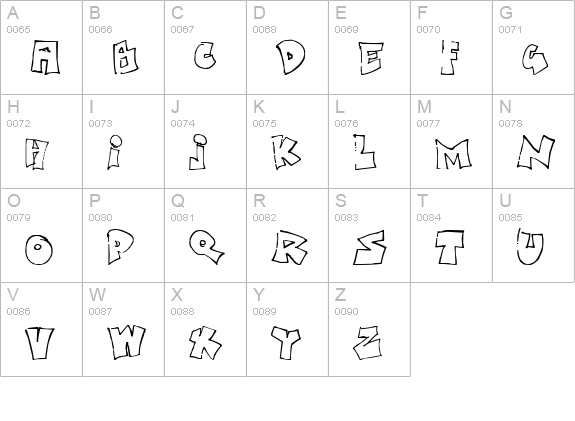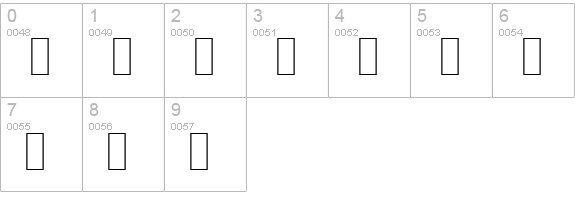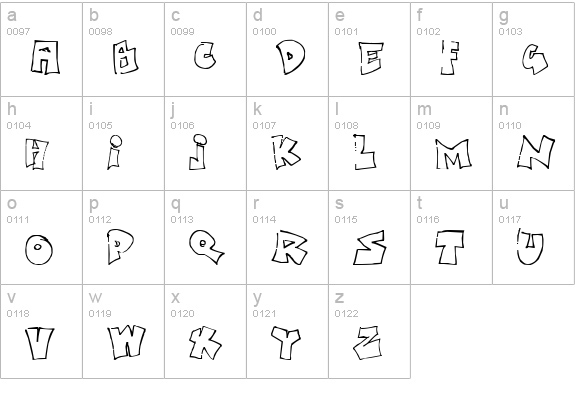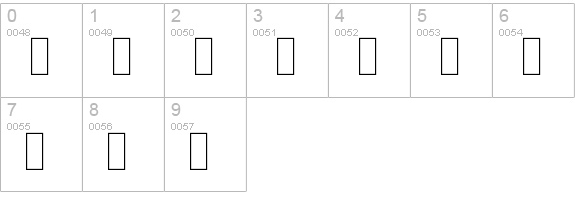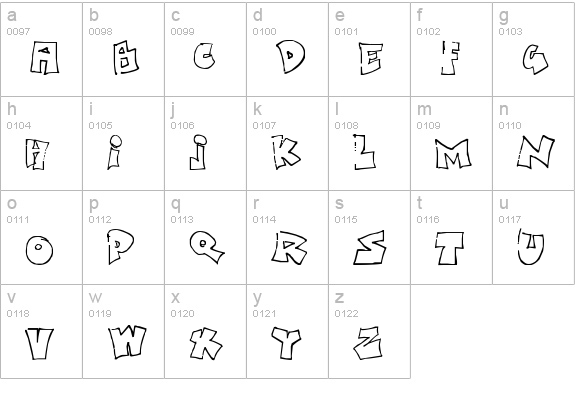
Bored Schoolboy Font Details
Bored Schoolboy font is a whimsical and playful typeface that perfectly captures the carefree spirit of youth. With its slightly uneven lines and quirky details, this font exudes a sense of creativity and fun. Whether you're working on a school project, designing a flyer, or simply looking to add a touch of charm to your creations, Bored Schoolboy font is sure to delight. Best of all, this font is completely free to download at FontsMarket.com. So go ahead and give your designs a youthful and energetic vibe with Bored Schoolboy font today!